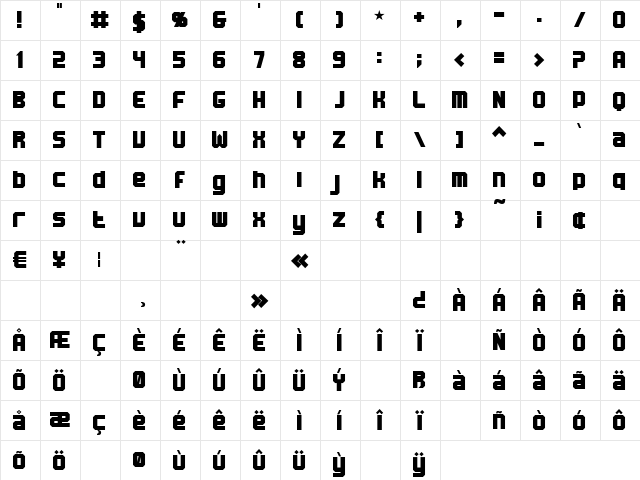
BN Machine Regular
Design Context for BN Machine Typeface
BN Machine takes a measured approach to typography — its balanced proportions and neutral character make it a reliable workhorse for both digital and print work.